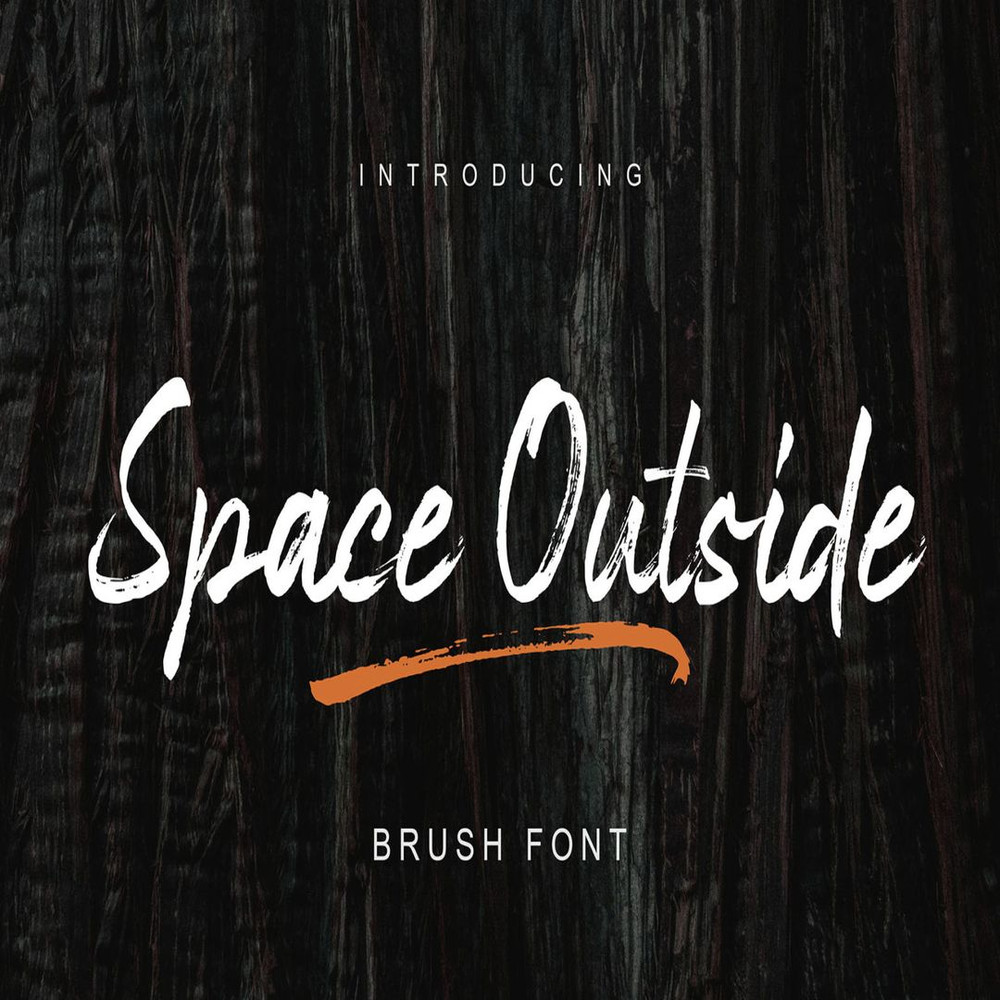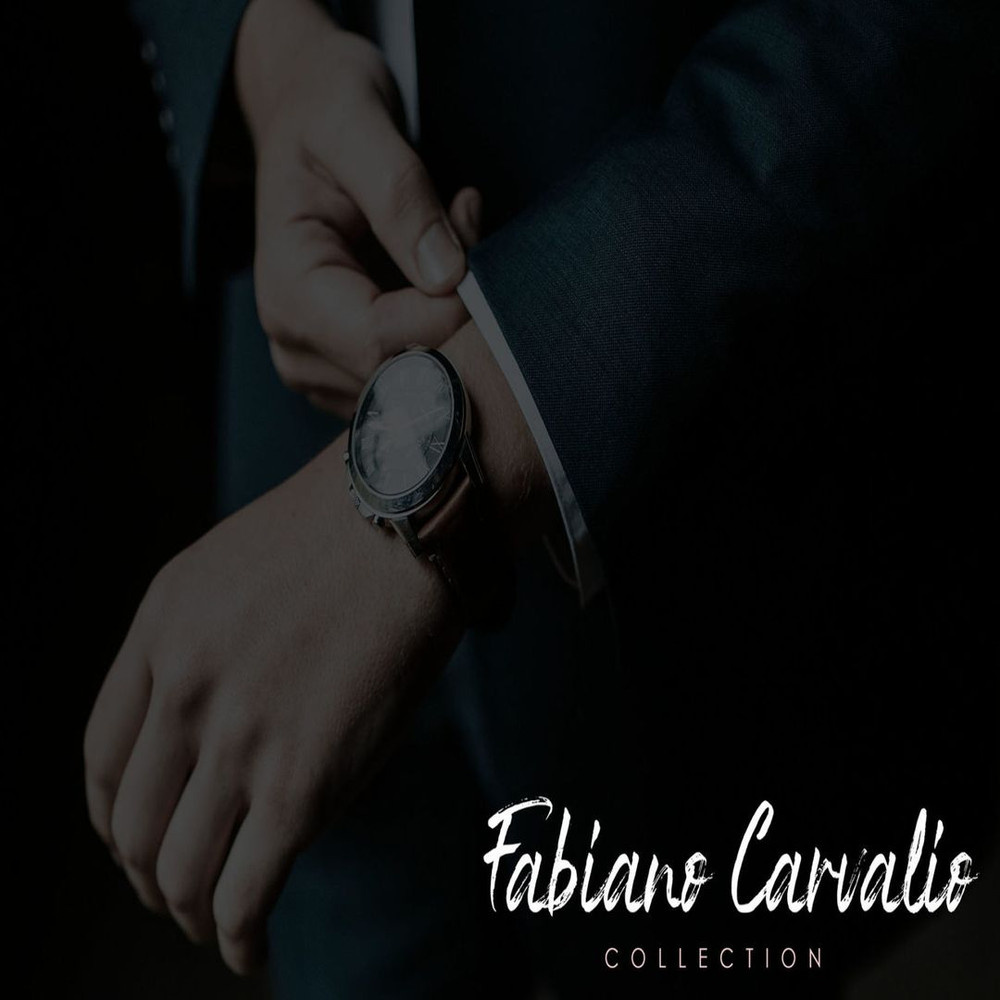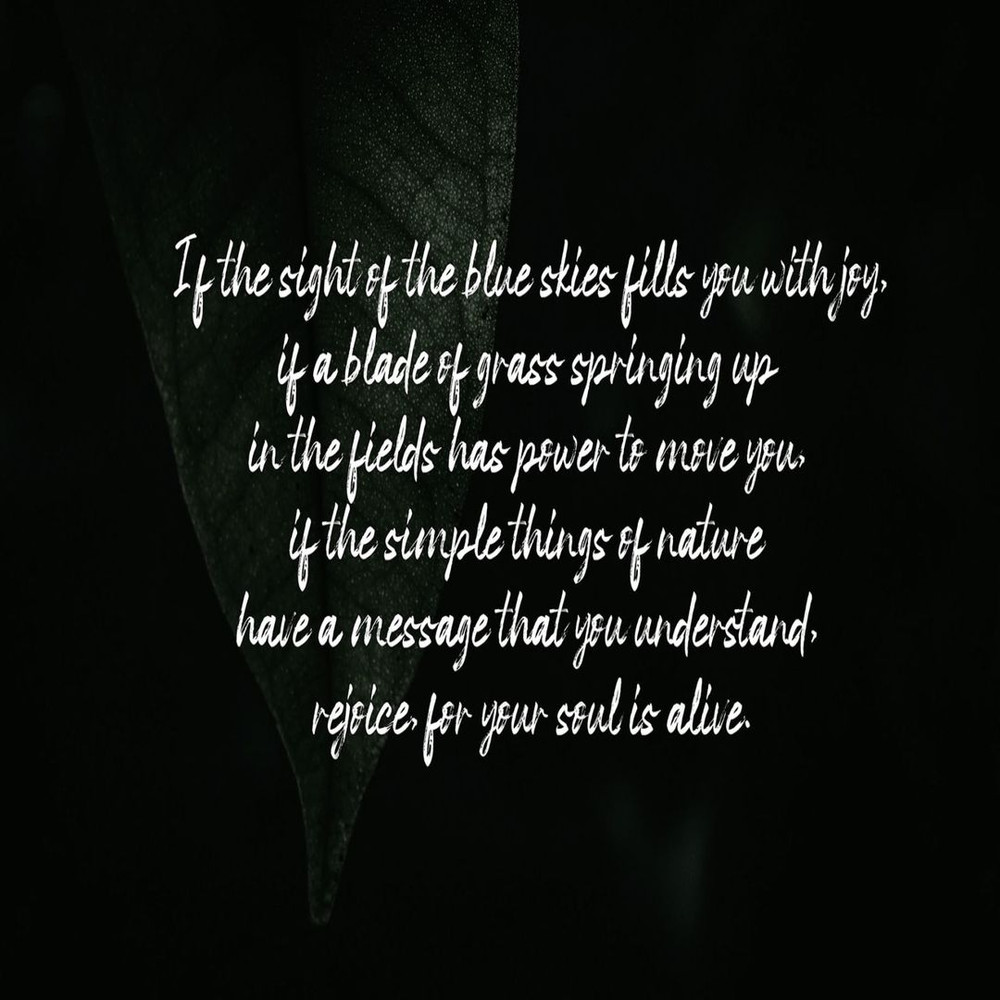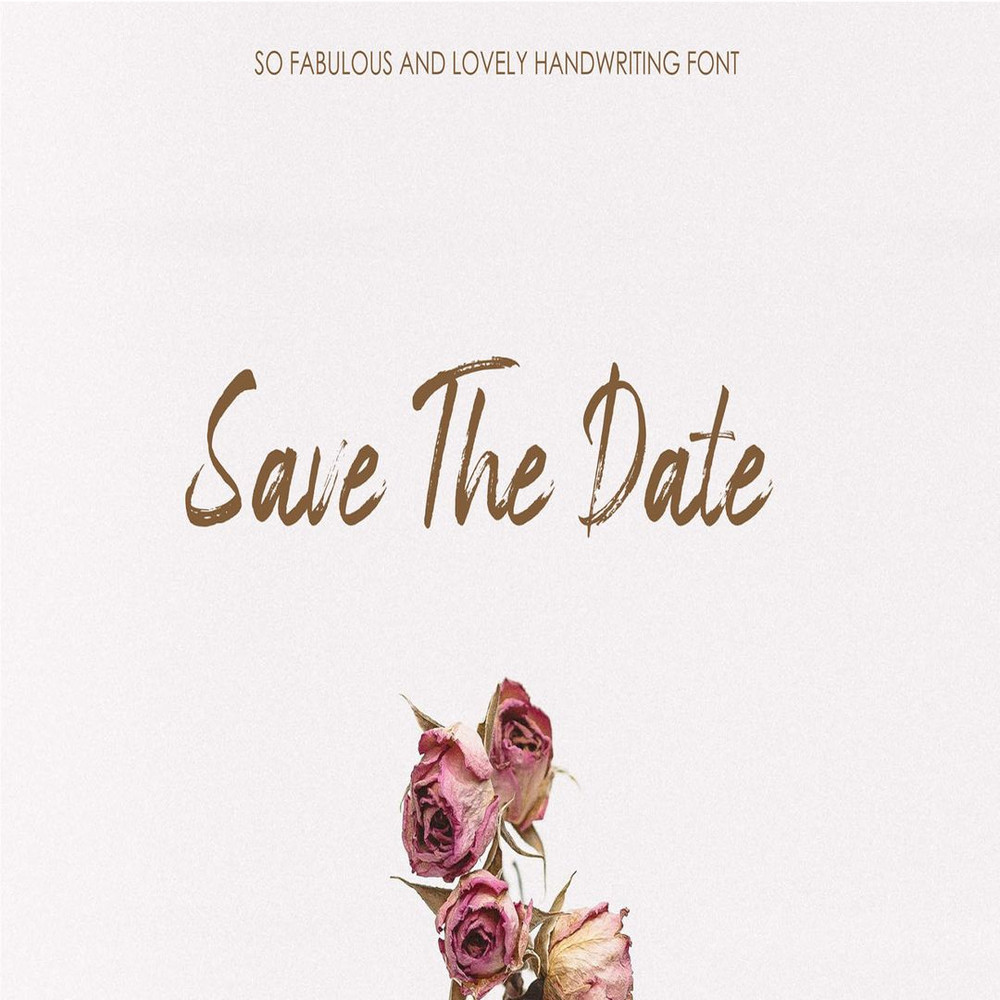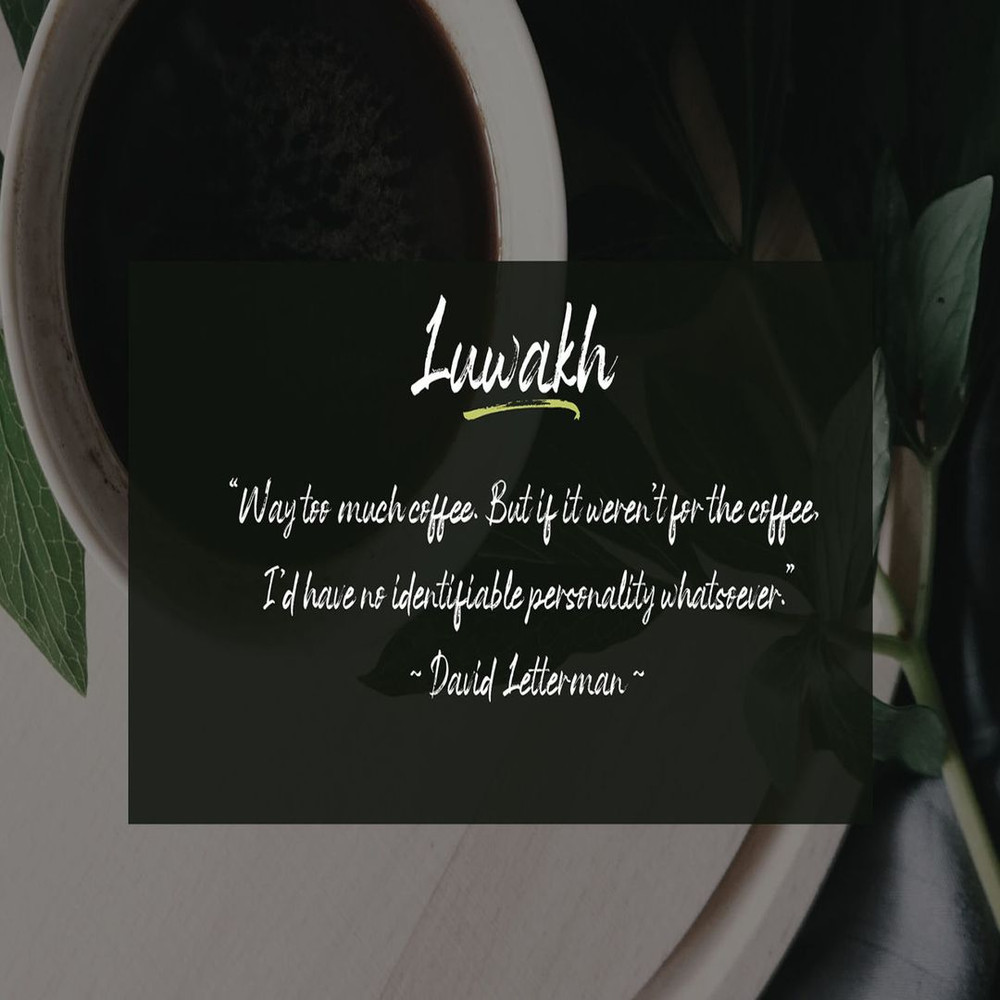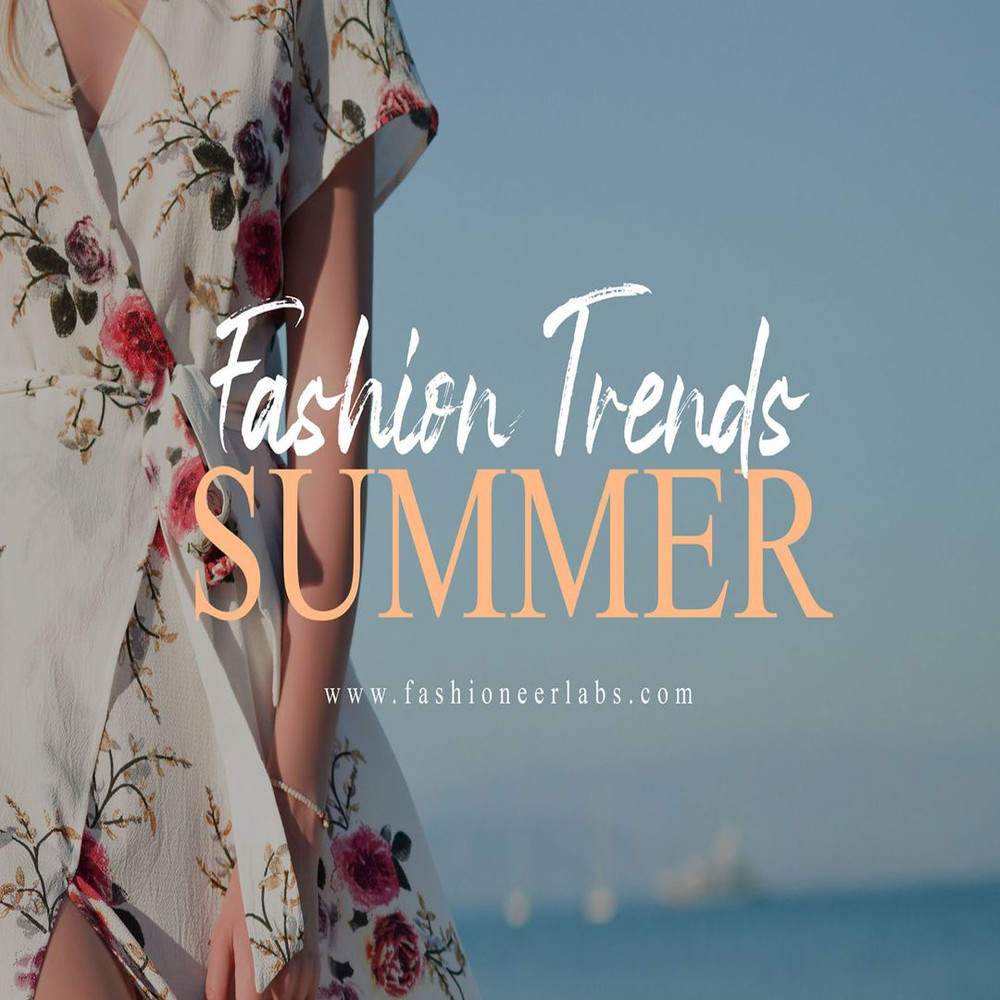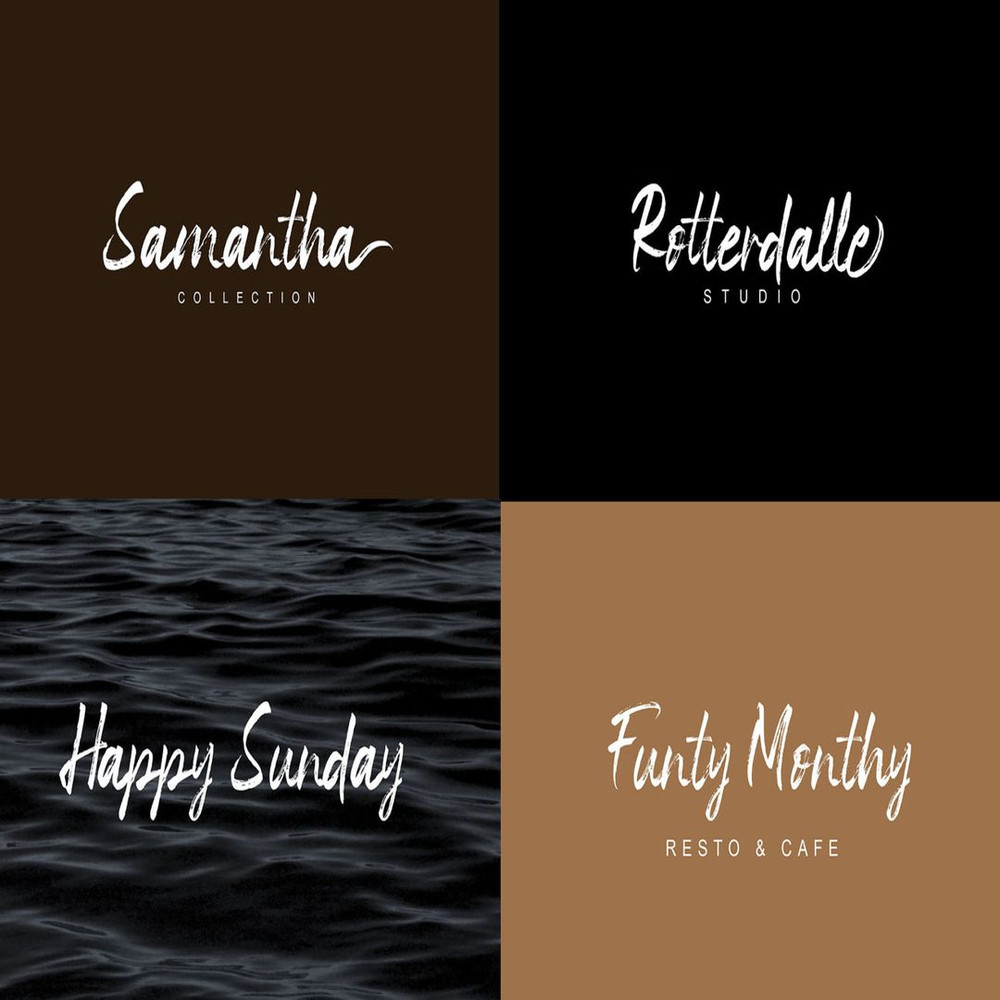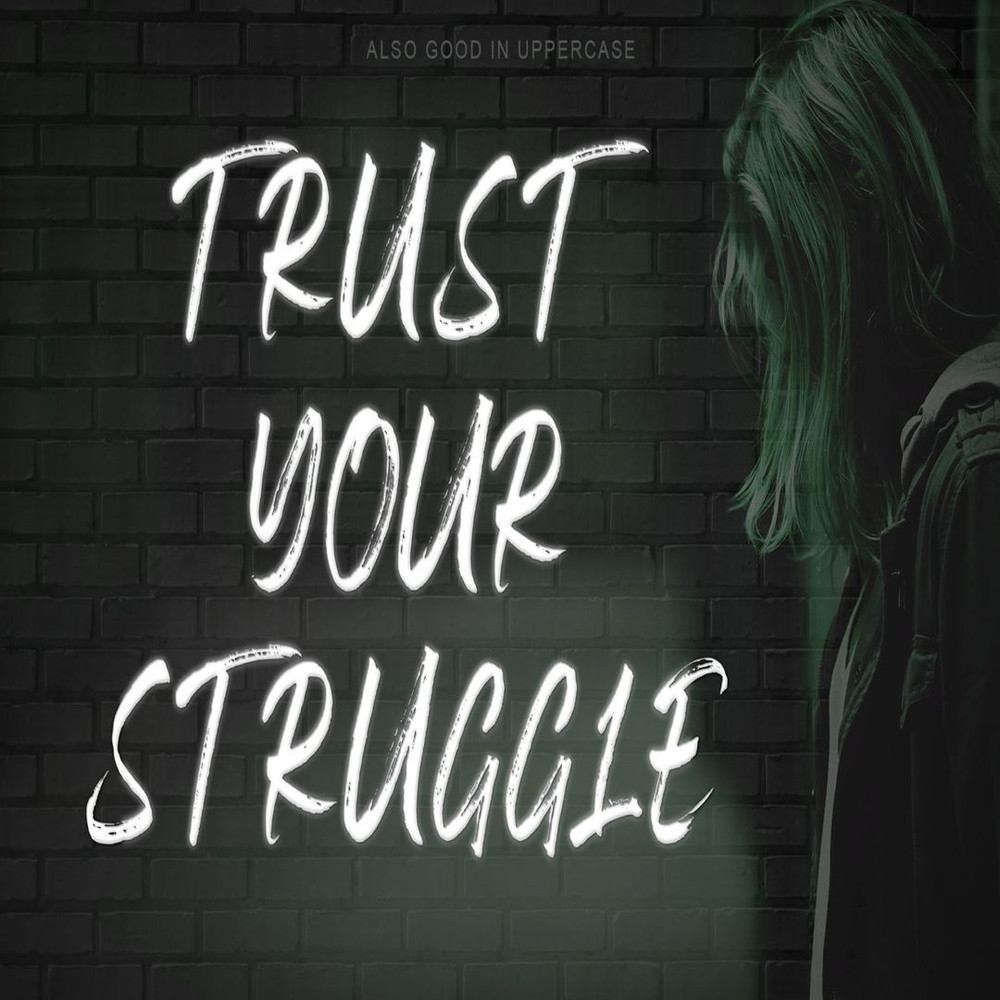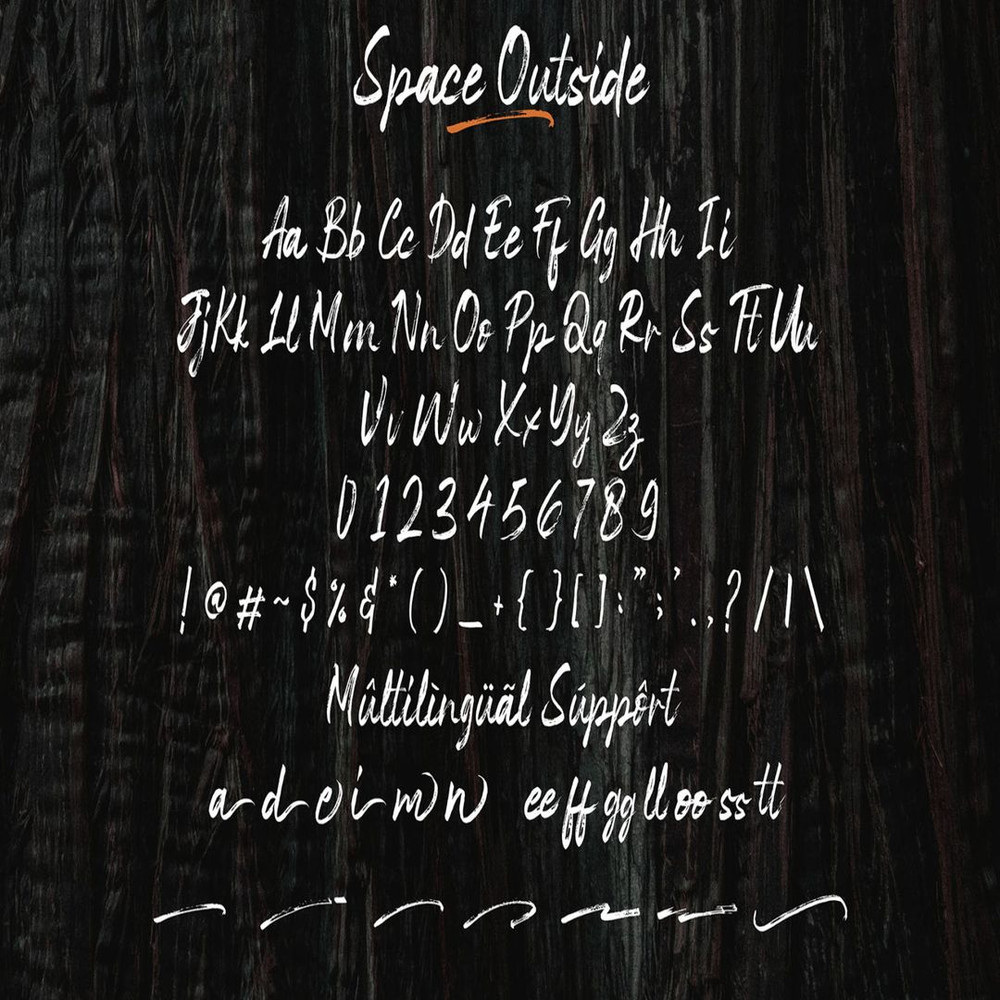
Space Outside Handbrush Trending Fonts - Digital Font
Introducing Space Outside a brush font which created to make it looks more natural that can give a more elegant and grand impression, which is very suitable for use in a variety of design needs such as logos, quotes, packaging, branding, and other wedding invitations, plus a variety of swashes and ligatures that will add an elegant impression to the design.
Space Outside Handbrush Trending Fonts - Digital Font
Introducing Space Outside a brush font which created to make it looks more natural that can give a more elegant and grand impression, which is very suitable for use in a variety of design needs such as logos, quotes, packaging, branding, and other wedding invitations, plus a variety of swashes and ligatures that will add an elegant impression to the design.